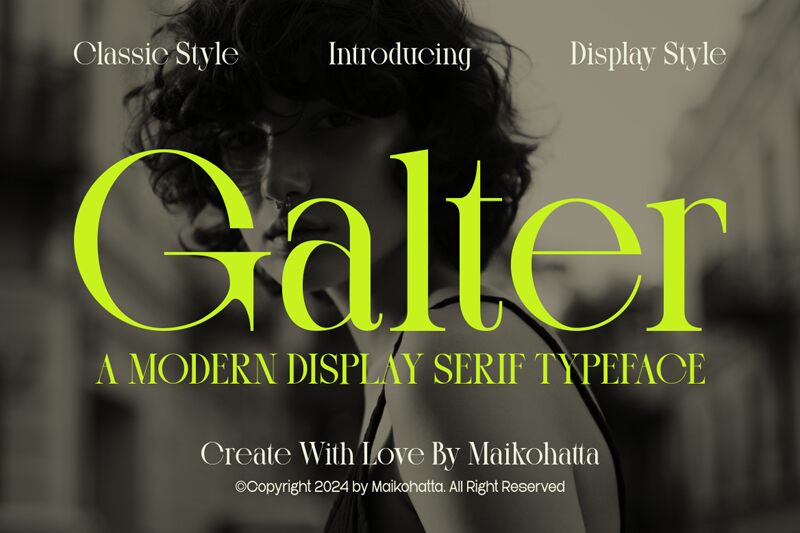
Galter font family by Gilang Ternadho consists of 2 font styles. This typical geometric typeface is constructed from precise ornaments in a proportional balance. Galter is a representation of the present and future reinterpreted in a font. Its elegant appearance can be attributed to various cursive style ligatures as well as an artistic alternate selection.
Galter is made complete with 4 different weight variations and 5 ready-to-use logo templates promising your projects fully customizable and time-efficient. The font is suitable for branding, logo, packaging, editorial, web design, ebook design, video titling, posters, invitations, and postcards.